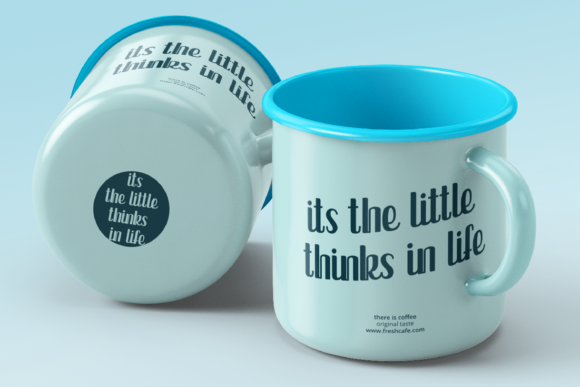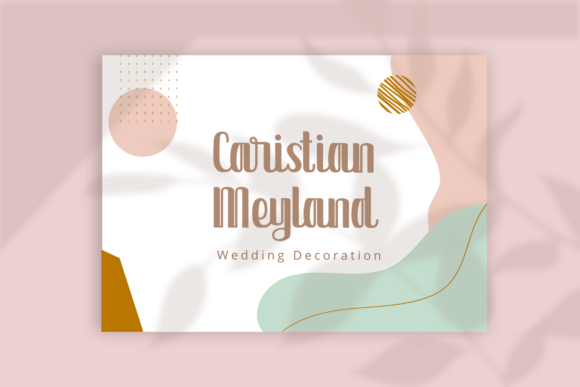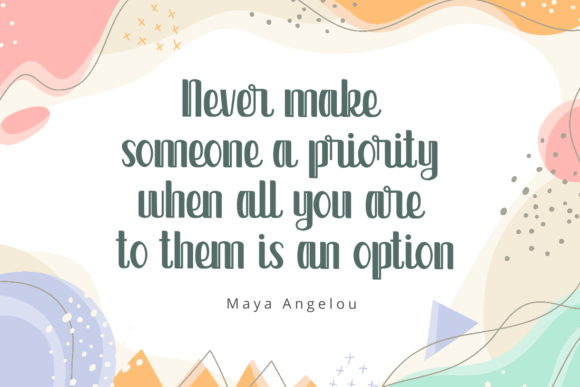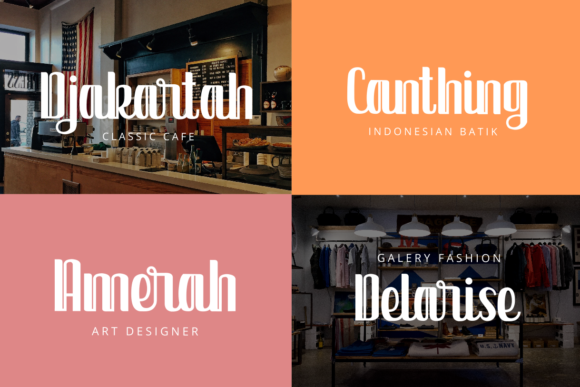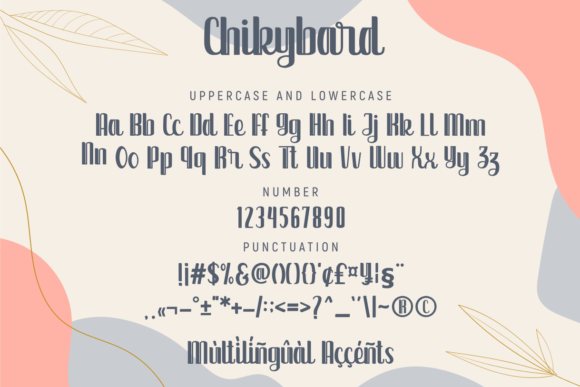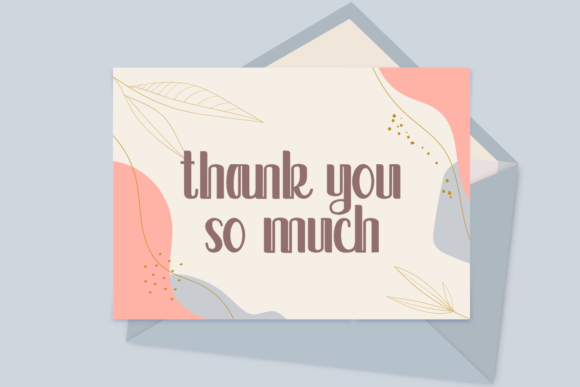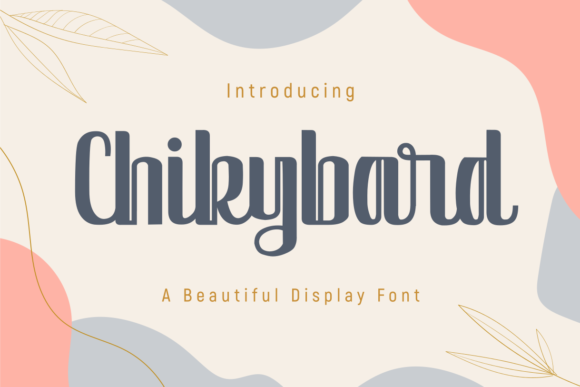
Introducing Chikybard Font: A Timeless Classic for Crafty Designs
Are you a designer or crafter looking for a font that exudes elegance and sophistication? Look no further than Chikybard Font, a beautiful and classic display font that’s perfect for a wide range of creative projects. With its original look and versatility, Chikybard is sure to become a staple in your design toolkit.
What is Chikybard Font?
Chikybard Font is a stunning display font that’s designed to make a statement. Its classic look is reminiscent of traditional serif fonts, but with a unique twist that sets it apart from the rest. The font features elegant lines, refined curves, and a sophisticated style that’s perfect for creating eye-catching titles, headings, and letterheads.
Key Features of Chikybard Font
• Classic Display Font: Chikybard Font is a beautifully crafted display font that’s perfect for creating stunning titles, headings, and letterheads.
• Original Look: With its unique blend of traditional and modern elements, Chikybard Font has an original look that’s sure to grab attention.
• Versatile: Chikybard Font is incredibly versatile, making it perfect for a wide range of crafty ideas, from stationery and greeting cards to logos and branding.
• Elegant and Sophisticated: The font features elegant lines, refined curves, and a sophisticated style that’s perfect for creating high-end designs.
Uses for Chikybard Font
Chikybard Font is perfect for a wide range of design projects, including:
• Letterheads and Stationery: Create professional-looking letterheads, invoices, and stationery with Chikybard Font.
• Titles and Headings: Use Chikybard Font to create stunning titles and headings for your website, blog, or social media channels.
• Greeting Cards and Invitations: Add a touch of elegance to your greeting cards and invitations with Chikybard Font.
• Logos and Branding: Use Chikybard Font to create a sophisticated logo or brand identity for your business.
Why Choose Chikybard Font?
There are many fonts to choose from, but Chikybard Font stands out from the rest. Here are just a few reasons why:
• Unique Style: Chikybard Font has a unique style that’s sure to grab attention and set your designs apart.
• High-Quality Design: The font is beautifully crafted with high-quality design elements, ensuring that your designs look professional and polished.
• Easy to Read: Despite its elegant style, Chikybard Font is easy to read, making it perfect for body text and captions.
Tips for Using Chikybard Font
Here are a few tips for getting the most out of Chikybard Font:
• Use it as a Display Font: Chikybard Font is perfect for use as a display font, so use it to create eye-catching titles and headings.
• Experiment with Font Sizes: Don’t be afraid to experiment with different font sizes to create visual interest and hierarchy in your designs.
• Pair it with Other Fonts: Chikybard Font pairs well with other fonts, so don’t be afraid to experiment with different font combinations.
Font Name Chikybard Font
Author zeenesia
Chikybard Font is a beautiful and classic display font that’s perfect for designers and crafters looking to add a touch of elegance to their designs. With its original look, versatility, and high-quality design, Chikybard Font is sure to become a staple in your design toolkit. So why wait? Download Chikybard Font today and start creating stunning designs that will leave a lasting impression.